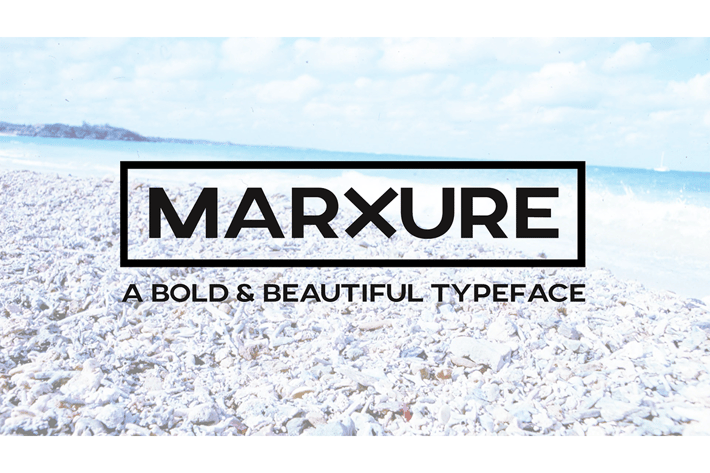
MARXURE - A Bold Headline Typeface + Web Fonts
MARXURE is a bold & beautiful headline typeface for modern web and print designs. This font contains only uppercase letters along with all numbers and symbols. The font comes with 2 weights with all formats including Web Fonts.